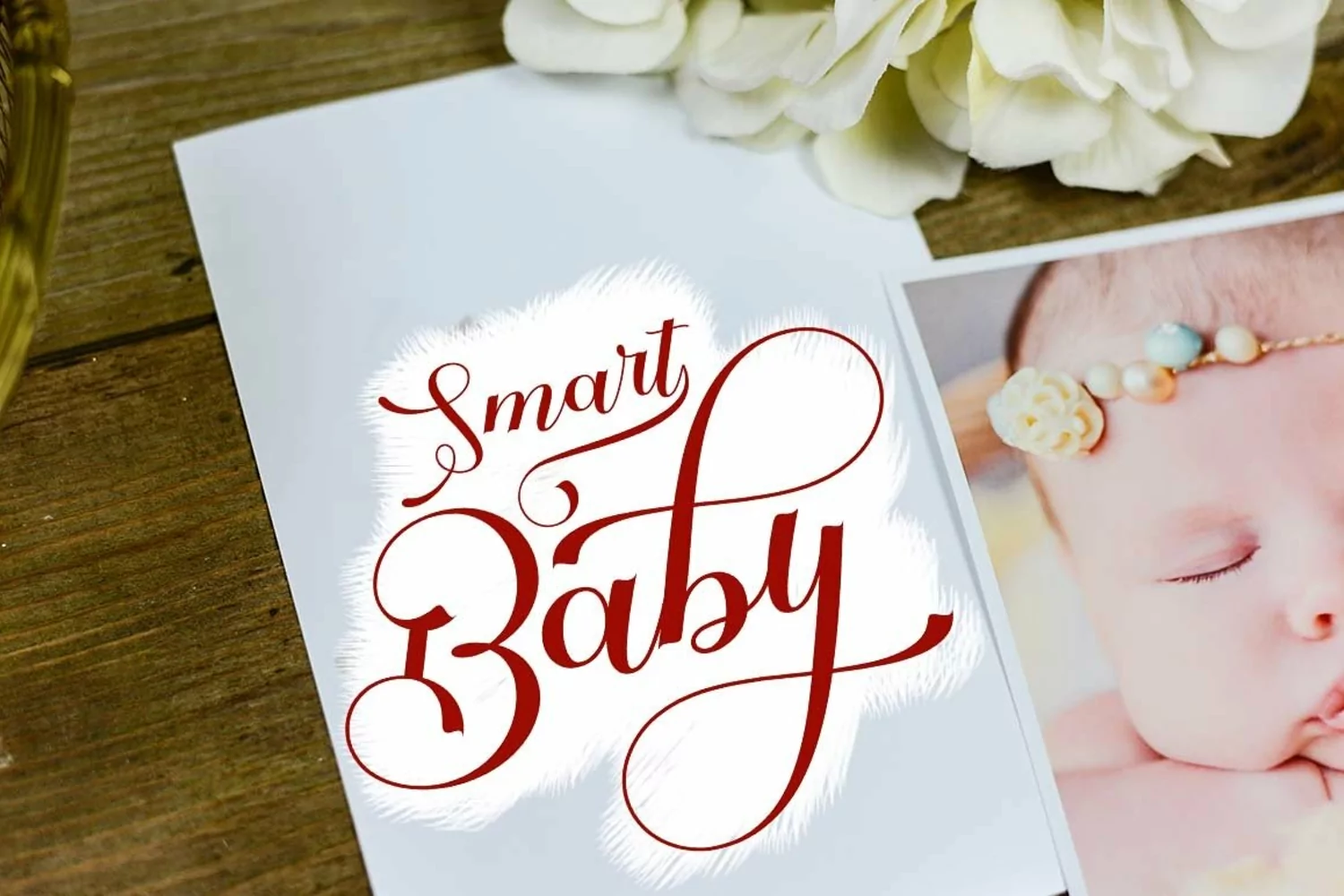
Baby boy
Baby boy - Elegant calligraphy font is a sweet, romantic calligraphy typeface with interesting characters along basic lines. It has a casual yet elegant touch. It can be used for various purposes such as logos, wedding invitations, titles, t-shirts, letterheads, name boards, labels, news, posters, badges etc.
The font includes OpenType features with alternative styles, ligatures, and multiple language support.